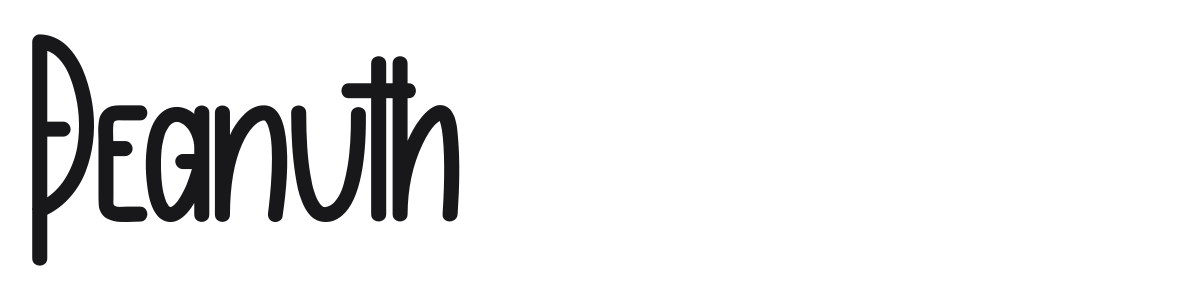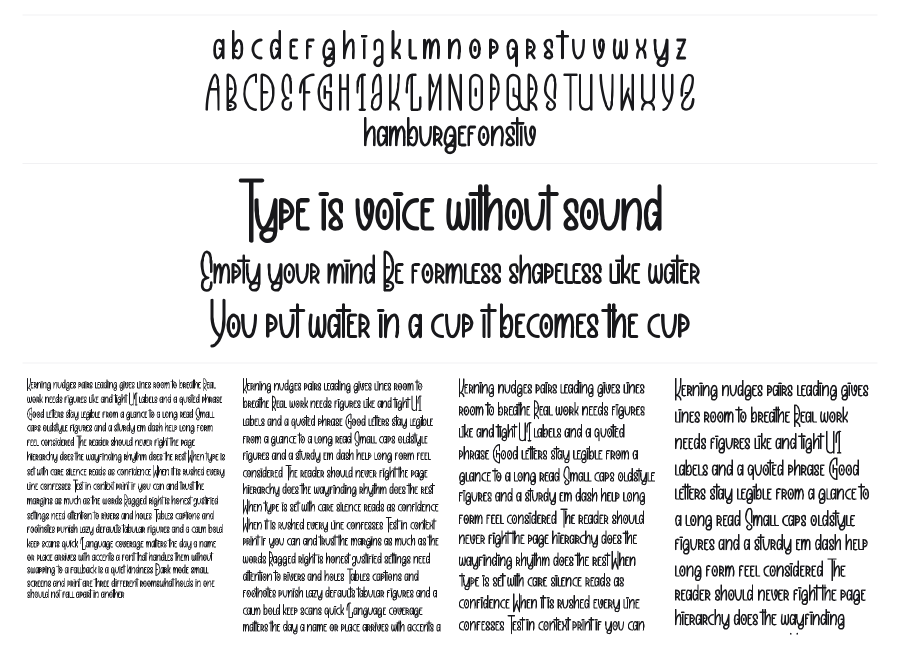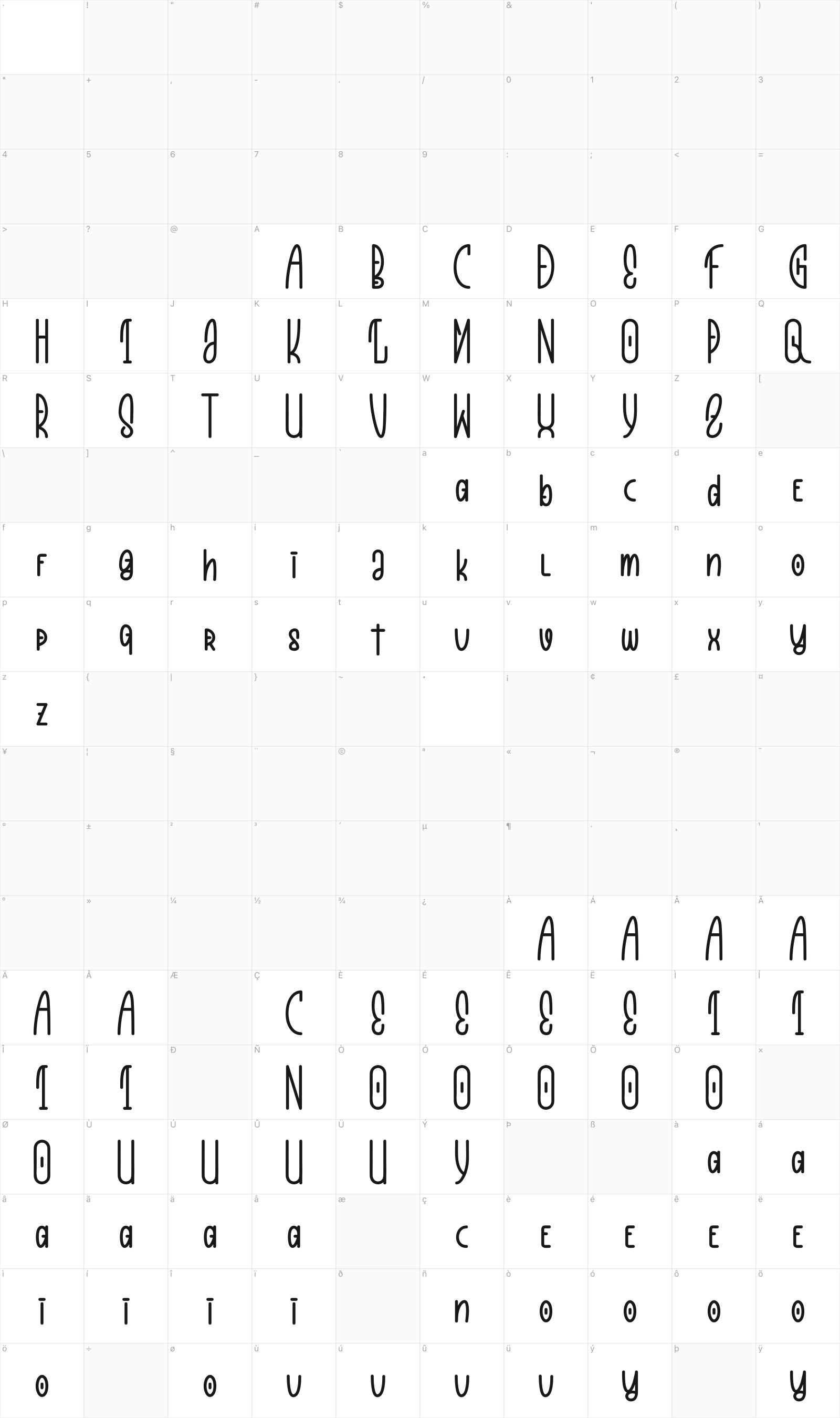
Peanuth
by Noah Type · Website
Peanuth is a bold, rounded display font with a bouncy, cartoon personality. Characters vary in height and carry looping terminals that give lines of text a lively, hand-drawn energy. A natural choice for youth brands, snack packaging, or anywhere the design needs to feel fun and approachable.